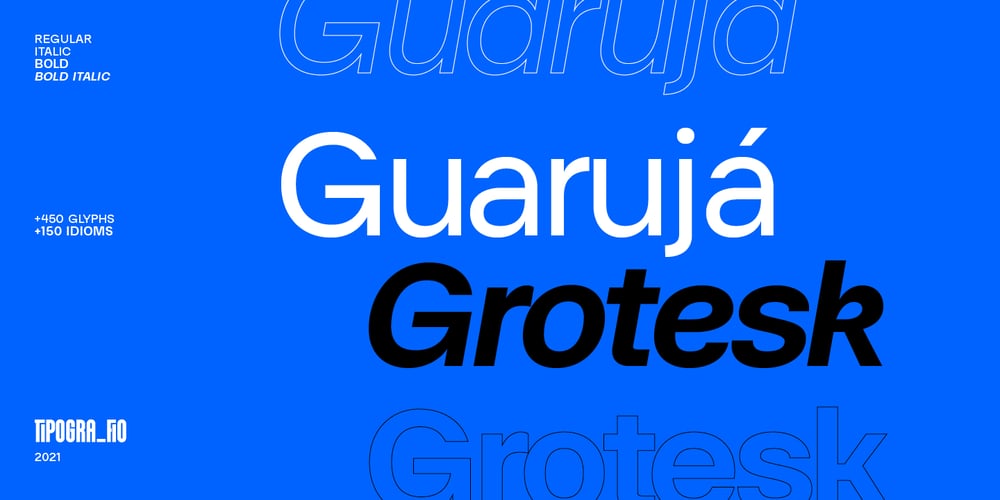
Guaruja Grotesk
Guaruja Grotesk font
Guaruja Grotesk Font Family was designed by Fio and published by Tipogra Fio. Guaruja Grotesk contains 4 styles and family package options. Guaruja Grotesk is the first Tipogra Fio family for headlines & body copy. The grotesque form factor is much inspired in the Modernism movement from the mid of 20th Century but the Italic weight is a great cursive contrast aside the Roman ones so you can make very brutalist layouts or craft humanist projects, without losing the communication between all the family.Do not be afraid to type words with uppercase I and lowercase L because this last one has its own personality so do others glyphs like Italic lowercase G, Y and K and the straight corners in the Roman uppercase A, K, V, W, X, Y and Z. The same curves and corners are transferred to the numbers, symbols and so on.If your text is in a latin alphabet even though has lots of diacritcs, Guaruja may get it done! If you’re making a mathematical equation, it also can make it. If there’s a signaling project with lots of destinations, trust the arrows to help with together with the whole family.